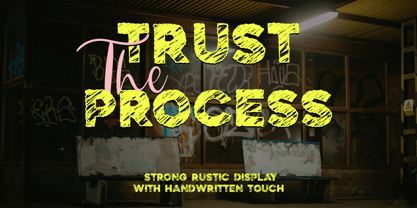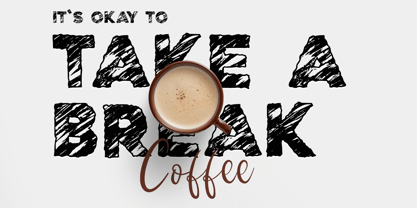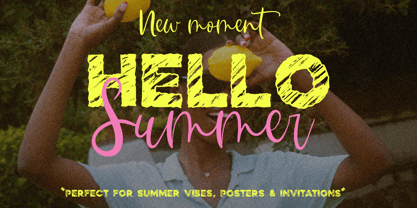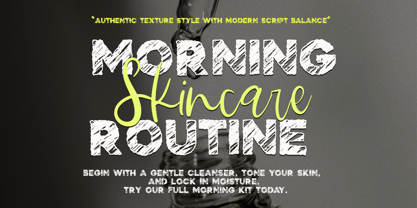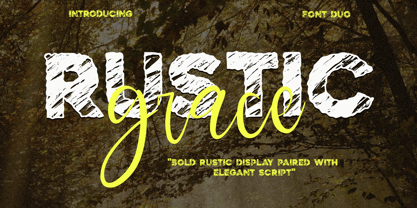
Rustic Grace Display
The Rustic Grace Display Font Family was designed by Muhammad Zaini and published by Cocodesign. Rustic Grace Display contains 2 styles and family package options. More about this family
Rustic Grace – Font Duo Rustic Grace is a font duo combining a bold rustic display with an elegant script. The strong textured display pairs beautifully with the smooth handwritten script, creating a perfect balance of contrast. It works well for branding, packaging, posters, quotes, social media, and editorial design. This font duo brings a natural, handmade yet modern feel, making it easy to adapt for a wide range of creative projects. With bold character and graceful elegance, Rustic Grace is an ideal choice for designs that need both strength and sophistication.